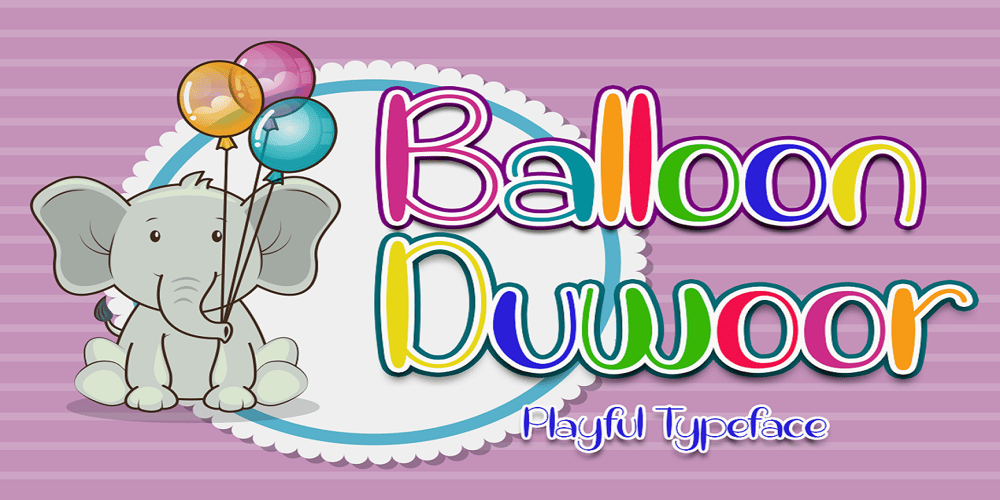
Balloon Duwoor Font Family was designed by Saiful Anwar and published by Sealoung. Balloon Duwoor contains 1 styles and family package options. Balloon Duwoor is a cute and playful display font. It looks wonderful on a variety of designs, both formal and informal. Whether you’re using it for crafting, digital designS, presentations or greeting cards, it’s perfect!What’s Included:- glyphs- Works on PC & Mac- Simple installation- Can be accessed in Adobe Illustrator, Adobe Photoshop, Affinity Design.- Fonts include multilingual support.Thank you very much, this font will make your project easier. Saiful Anwar – Sealoung studio